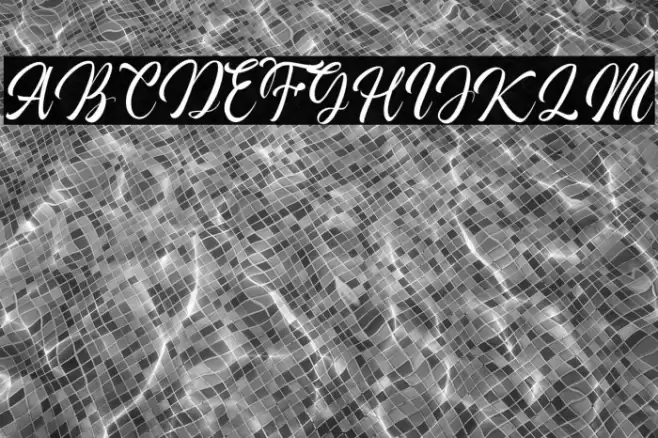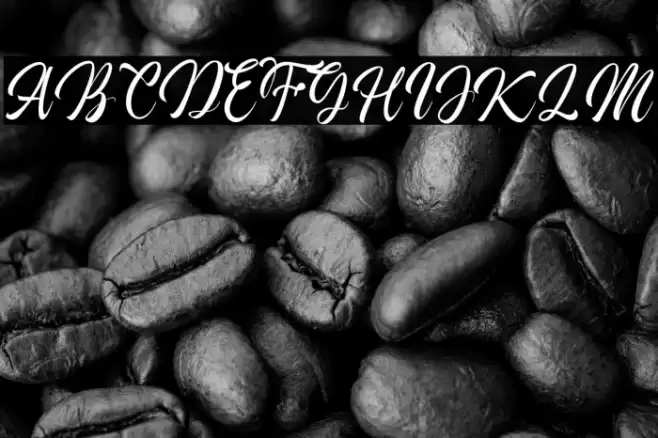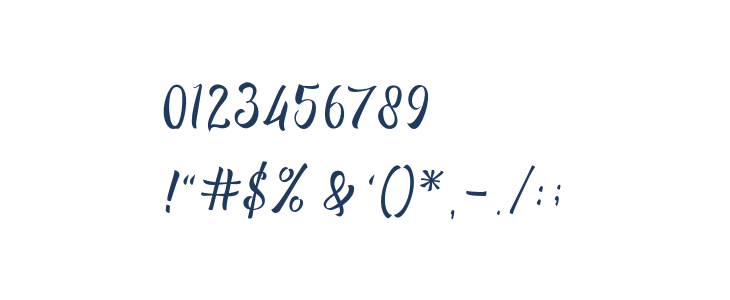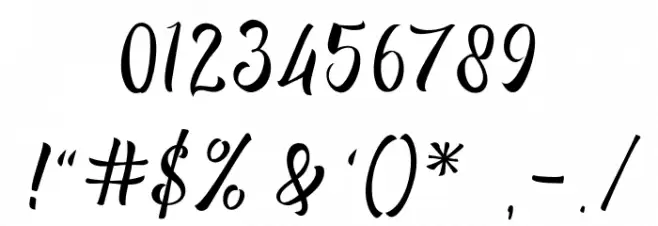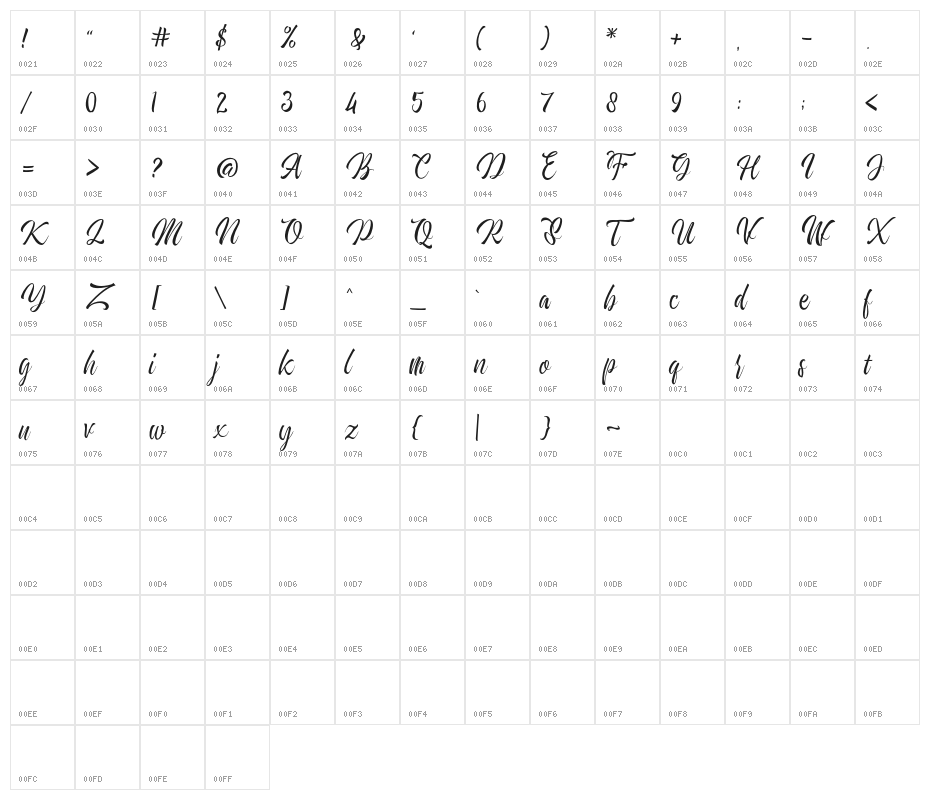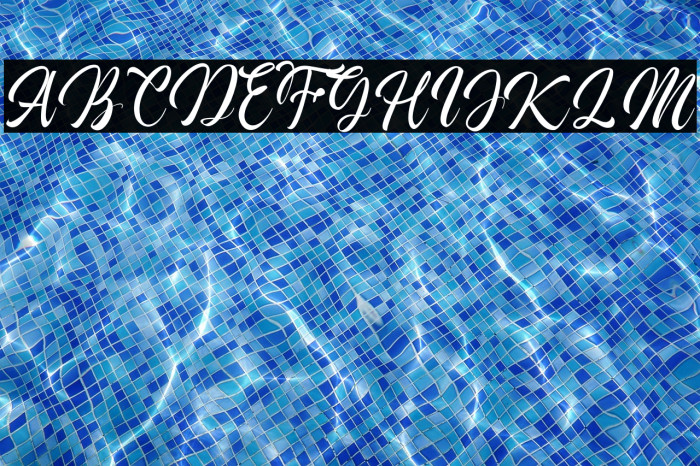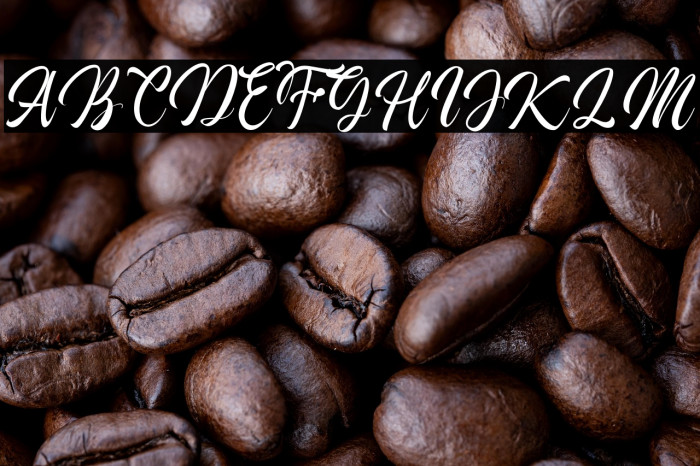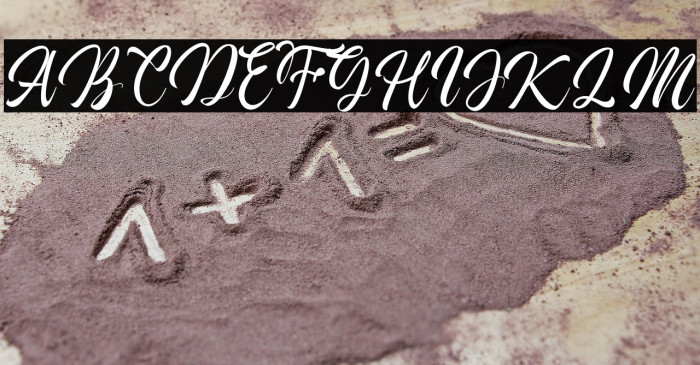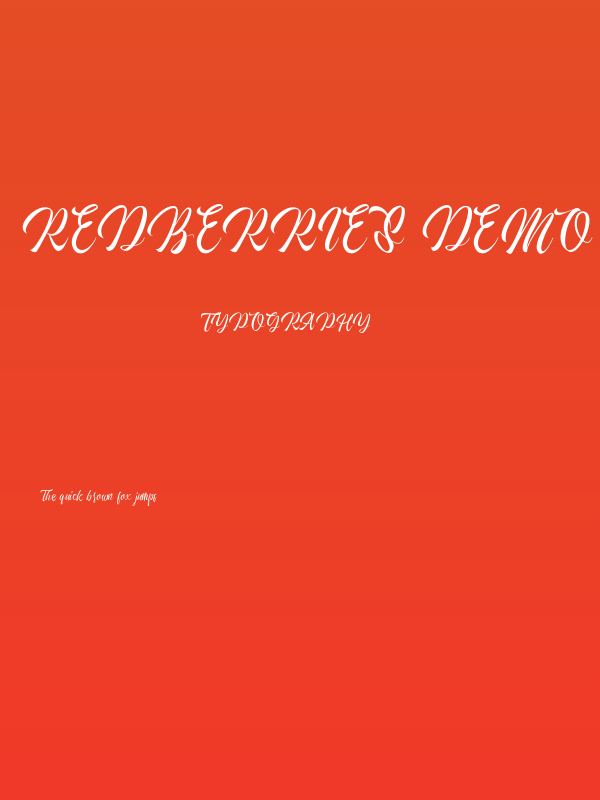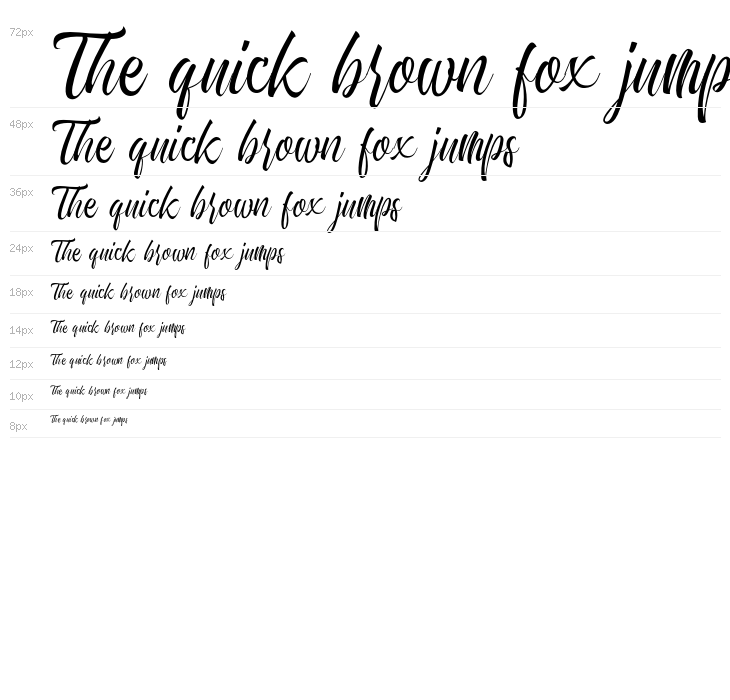
Redberries DEMO Font
Redberries DEMO Description
This font features a flowing, cursive style with elegant, sweeping strokes that give it a handwritten appearance. The uppercase letters are bold and expressive, with a slight slant that adds to the dynamic feel. Lowercase letters maintain a consistent flow, with smooth connections between characters, enhancing the script-like quality. Numbers and special characters are designed with the same attention to detail, ensuring a cohesive look across all elements. The overall design is both sophisticated and approachable, making it suitable for a variety of creative applications.
A flowing, cursive font with elegant, sweeping strokes and a handwritten appearance from Uncategorized fonts.
- Font: Redberries DEMO
- Proposed Projects: Ideal for wedding invitations, greeting cards, branding projects, and elegant packaging designs.
- Use Case: Logos, Invitations, Decorative text